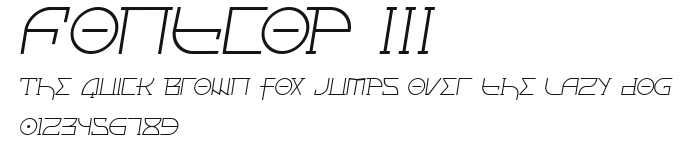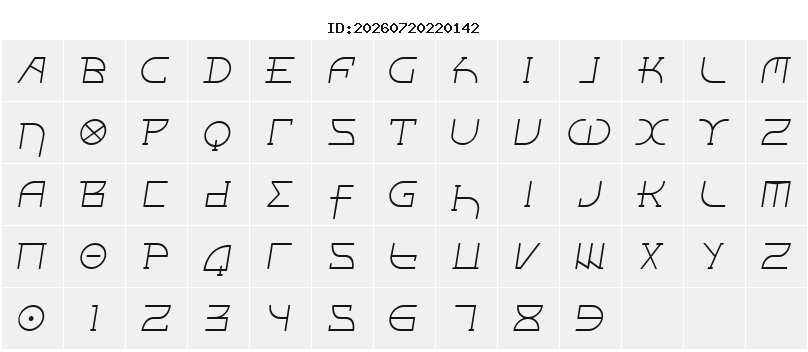
• Font Name: Fontcop III
• Font ID: Apostrophe(')andAlejandroPaul.: Fontcop III: 2000
• Full Font Name: Fontcop III
• Designer: Apostrophe (') and Alejandro Paul.
About Fontcop III.ttf
Fontcop III.ttf is a modern, elegant sans-serif font designed for ultimate readability and visual harmony. Perfect for branding, headlines, web design, and print materials.